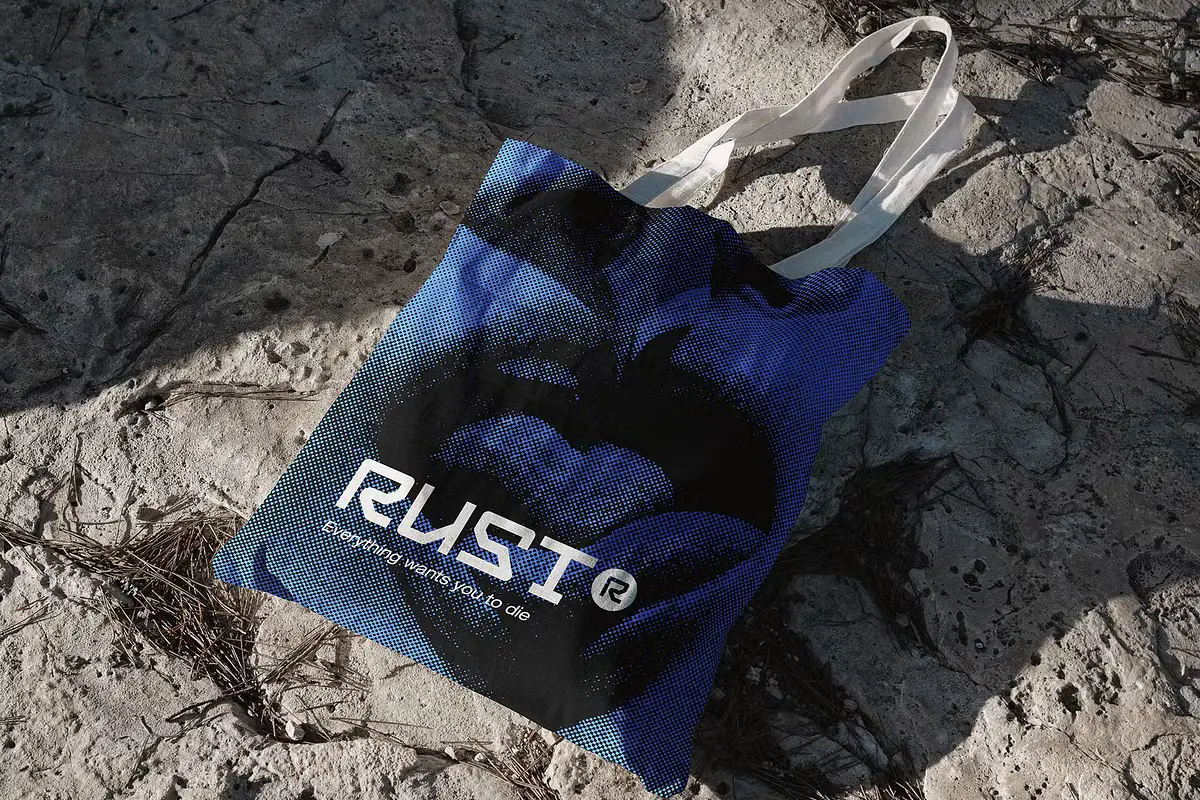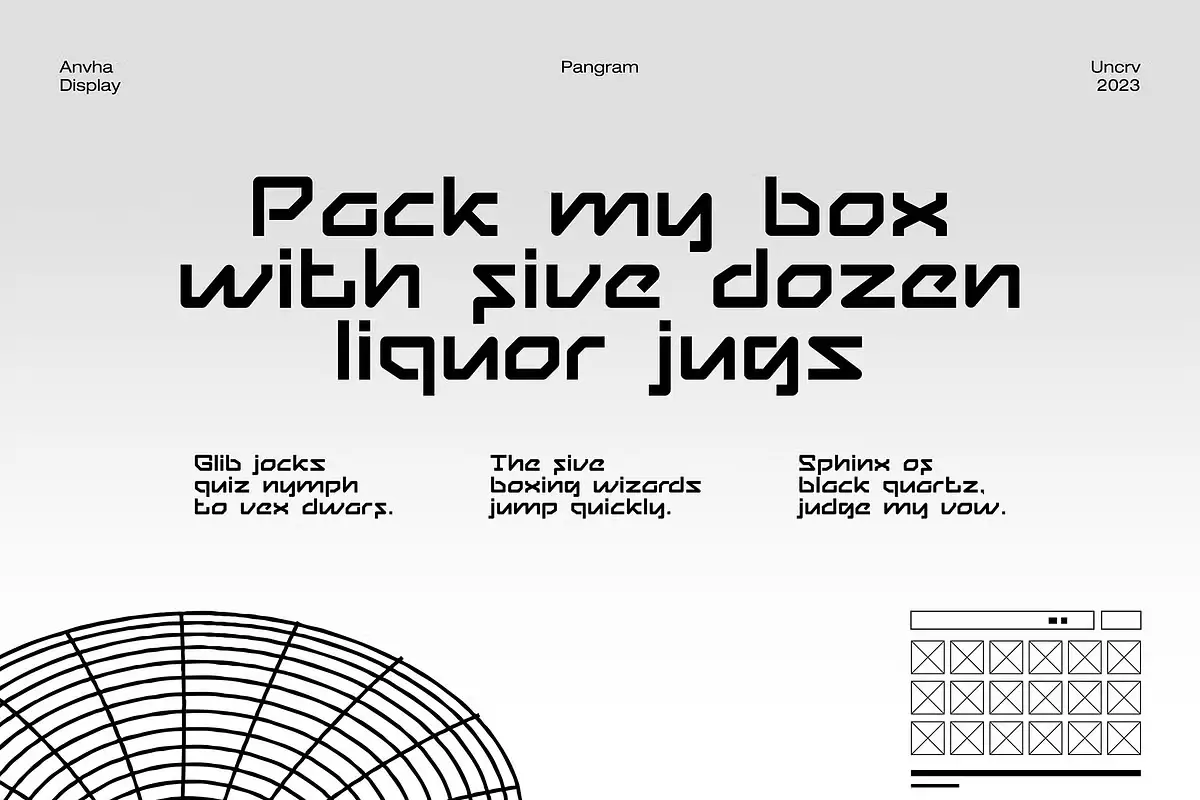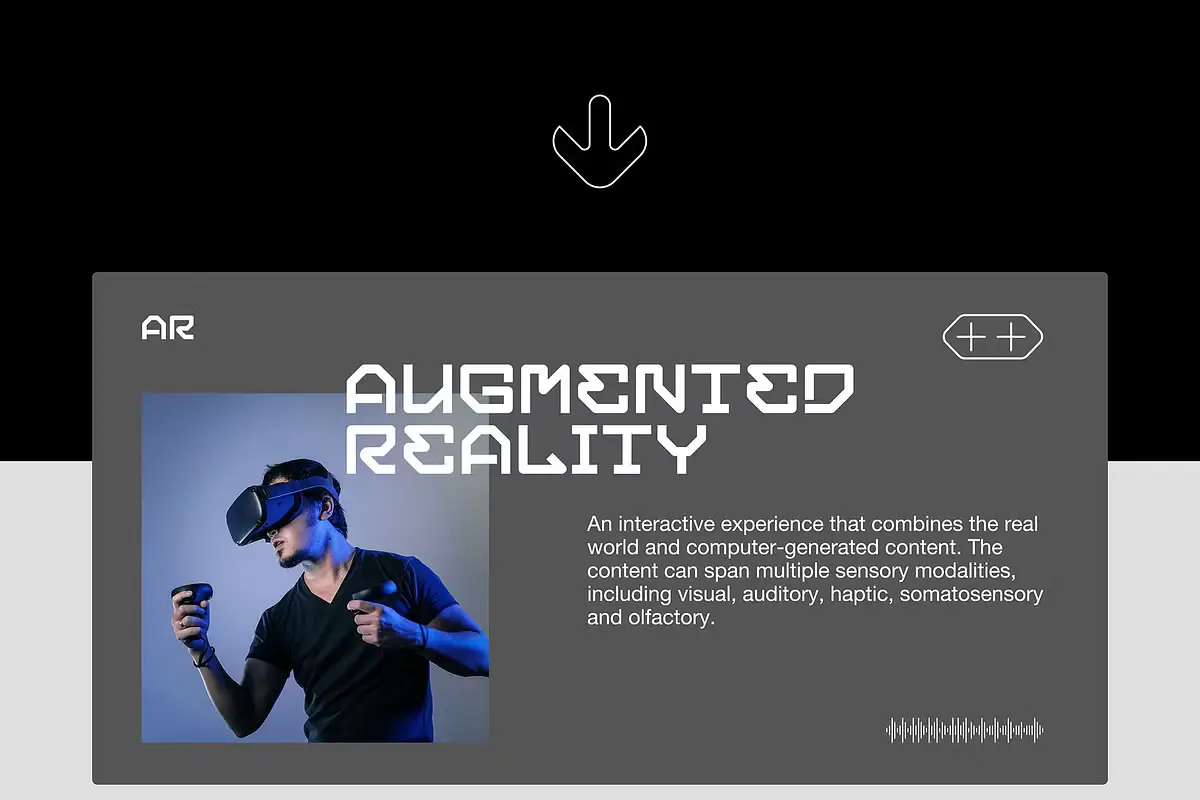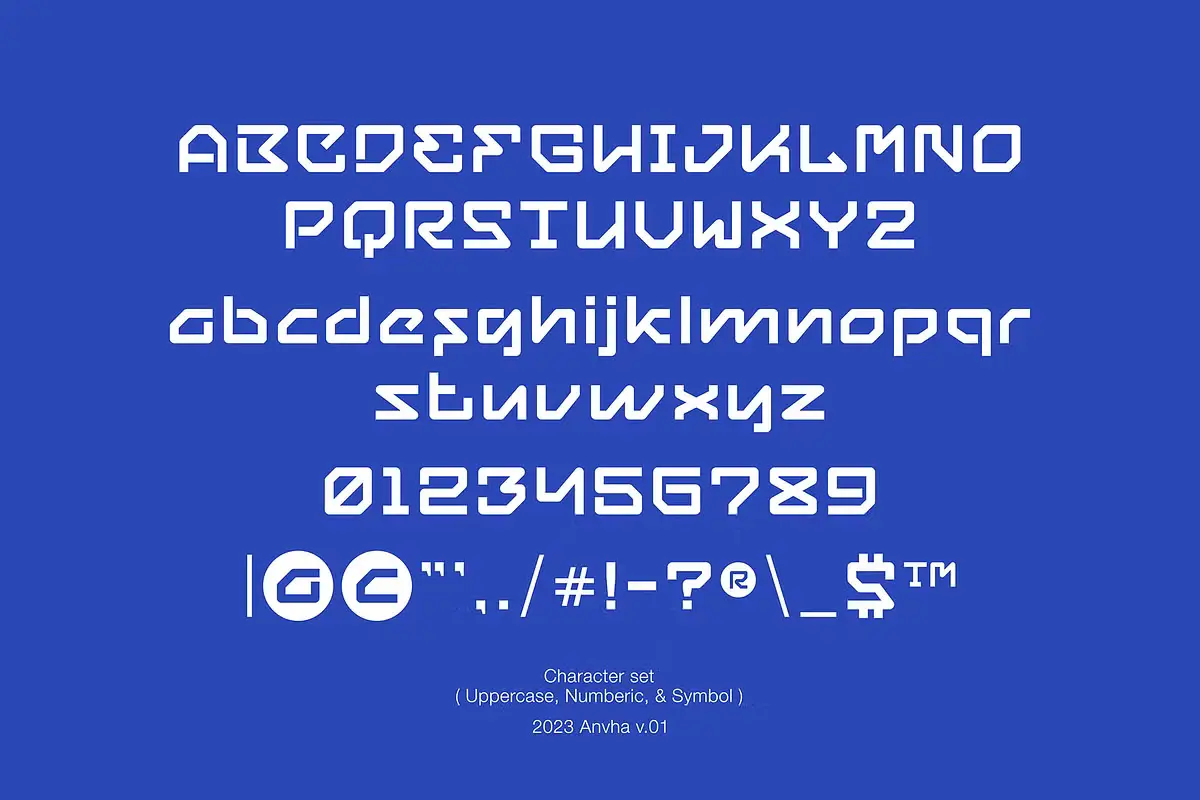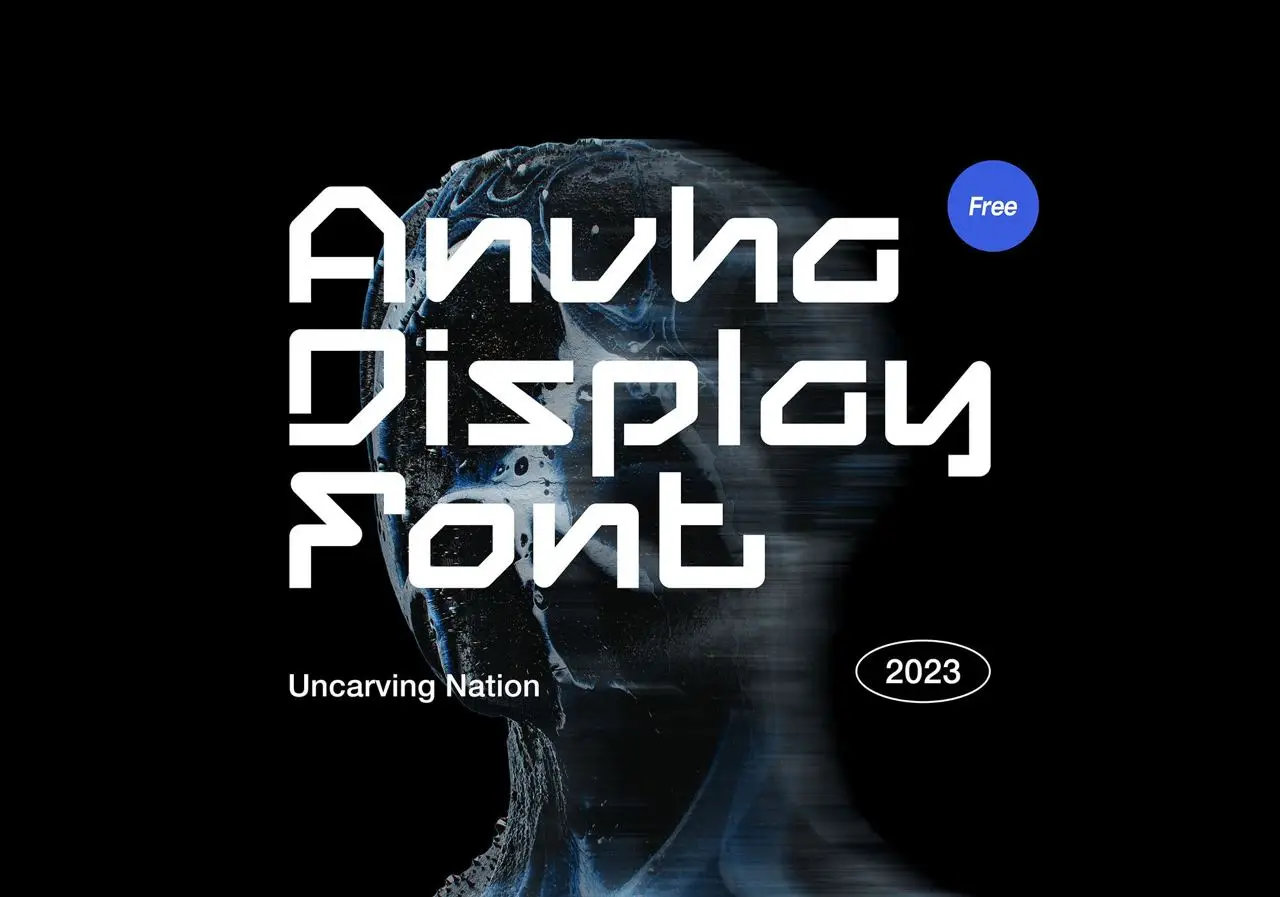
Anvha – Display Font
Introducing Anvha, a modern display font designed by uncarving. This font combines boldness with an italic touch, ensuring simplicity and unique shapes that stand out. Whether you’re working on projects related to gaming, future tech, space travel, or virtual reality, Anvha is the perfect choice to elevate your designs.
Anvha is crafted for those who seek a contemporary and striking typeface. Its futuristic aesthetic makes it ideal for a wide range of applications, from branding to digital content. This font is not just about looks; it’s about making a statement.
- ✅ Modern Design → Captivates attention and enhances your project’s appeal.
- ✅ Unique Shapes → Stands out in any design, making your work memorable.
- ✅ Versatile Usage → Perfect for gaming, tech, and virtual reality projects.
Anvha is not just another font; it’s a tool for creatives who want to push boundaries. Its sleek and modern design is trusted by designers worldwide, making it a go-to choice for innovative projects. Whether you’re creating a logo, a website, or promotional materials, Anvha delivers a professional look that resonates with audiences.
| Font Style | Display |
| Designer | Uncarving |